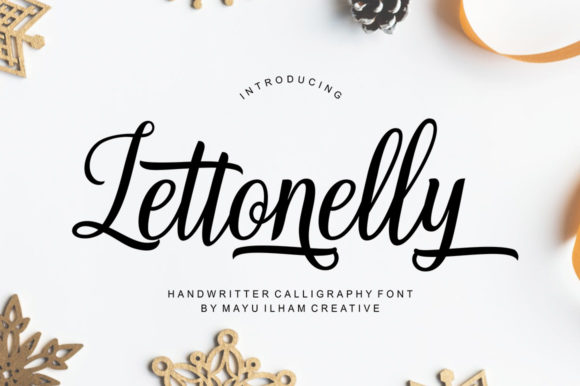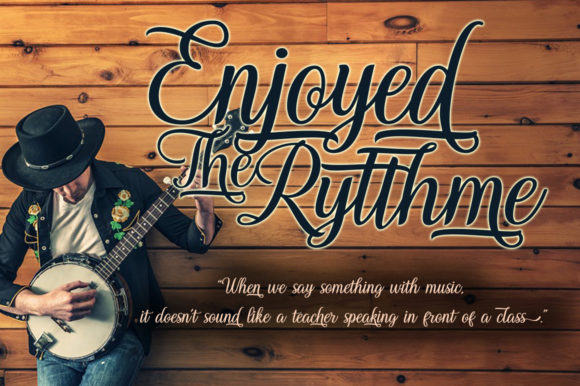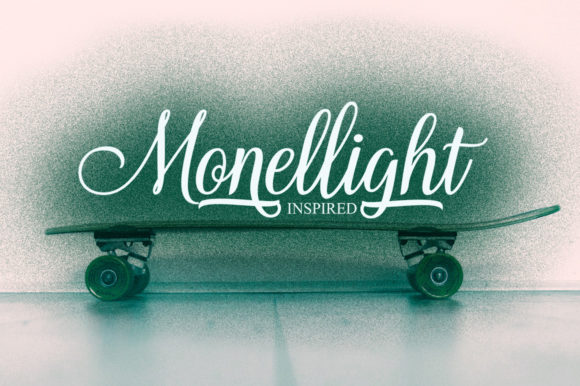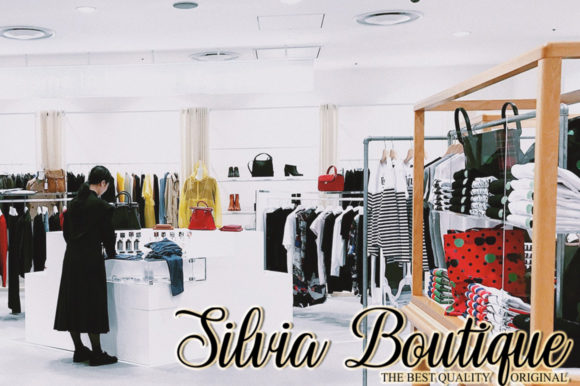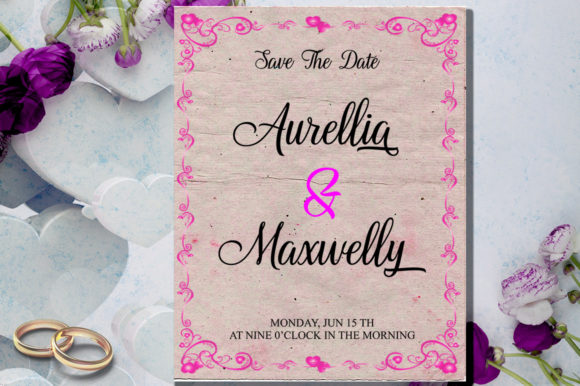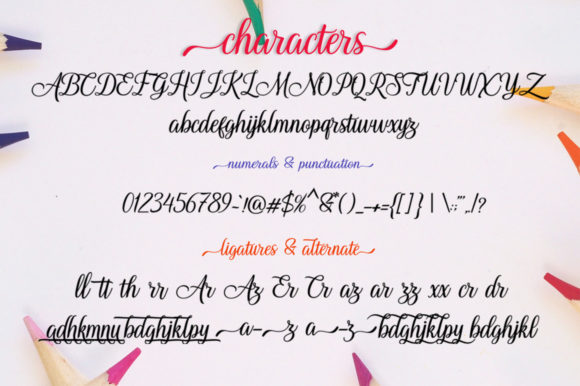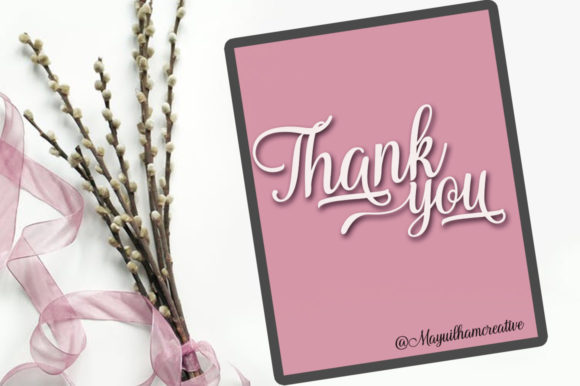
HomeScript FontsLettonelly Font Script Fonts Lettonelly Font FacebookXPinterestWhatsApp Lettonelly Font Poster 2 Lettonelly Font Poster 3 Lettonelly Font Poster 4 Lettonelly Font Poster 5 Lettonelly Font Poster 6 Lettonelly Font Poster 7 About Lettonelly Font Lettonelly is a stunning, authentic and unique handwritten font with an authentic and bold touch. DOWNLOAD NOW People also explored Aljameela Font Coffee Mug Mock Up 11 Oz Sublimation Cup Medieval Characters Font Rosmitta Font Alledatore Font Sahila Font Delicious Toast Font Mega Star Font Boastrip Font 299 0 TagsLettonelly Font Previous articleBright Confetti FontNext articleMellifluous Font LEAVE A REPLY Cancel reply Comment: Please enter your comment! Name:* Please enter your name here Email:* You have entered an incorrect email address! Please enter your email address here Website: Save my name, email, and website in this browser for the next time I comment. Personal Use Free Hello Holiday Personal Use Free Read more about this font Happy Camping Personal Use Free Read more about this font Muthiara Font Personal Use Free Read more about this font Foo Personal Use Free Read more about this font BLOG Exploring Font Trends Shaping Communication in the Digital Era Fonts, like all design elements, are subject to trends. They play a crucial role in communicating a brand's personality,... Using Fonts in Digital Marketing: Tips to Strengthen Your Brand Identity Elegant Wedding Invitation Fonts – Handwritten & Script Fonts How to Cut Any Font on Cricut: Convert a Font to SVG (Free)